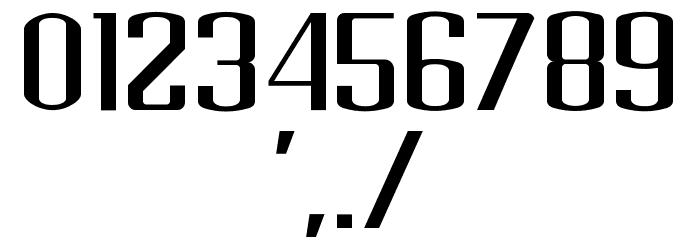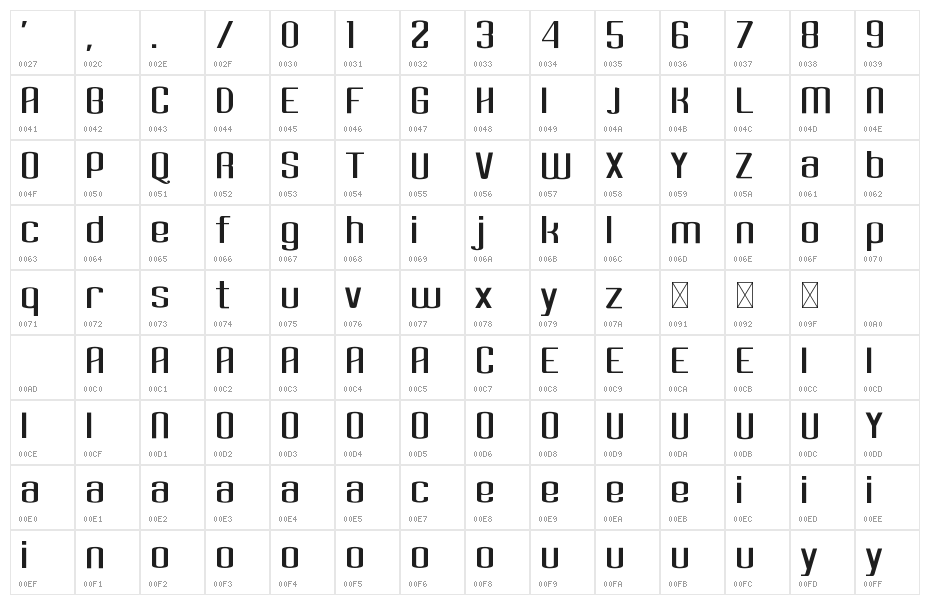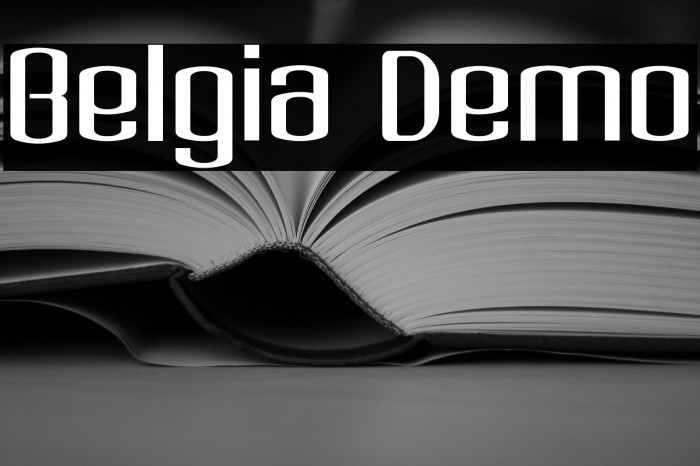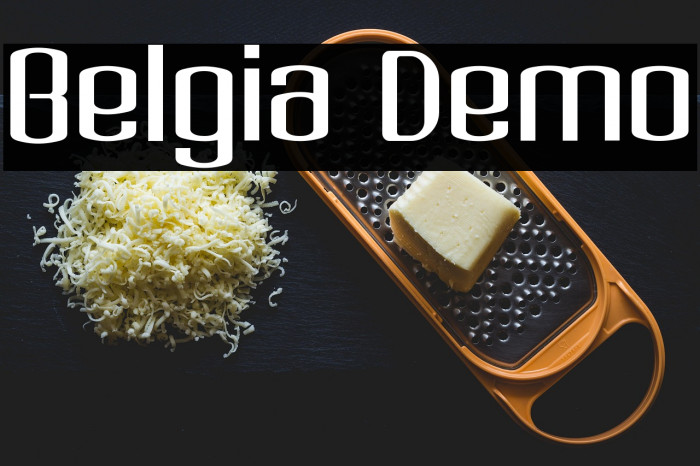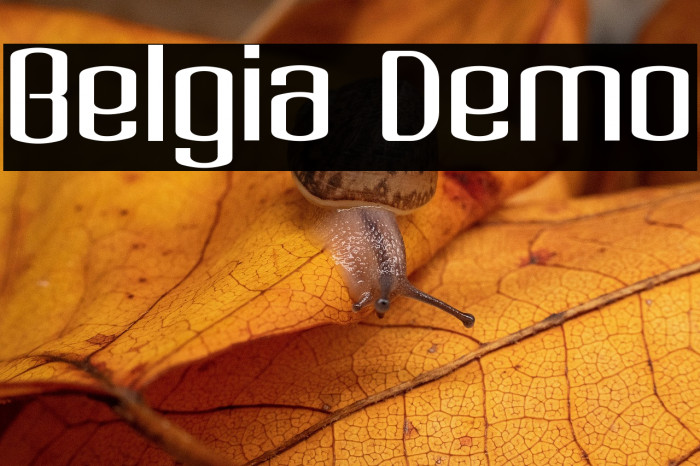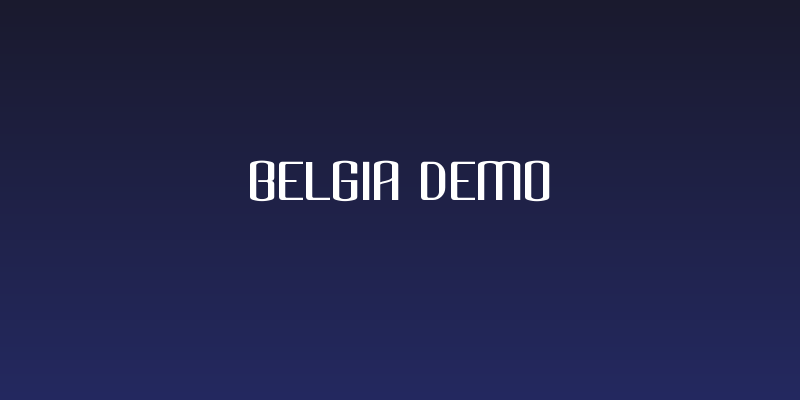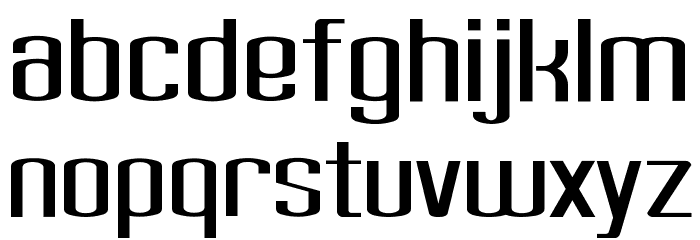
Belgia Demo Font
Belgia Demo Description
This font features a modern and sleek design with a geometric structure. The characters are tall and narrow, giving it a condensed appearance. The uppercase letters have a consistent height, while the lowercase letters maintain a uniform x-height. The numerals are designed to match the overall style, with a distinctive angularity that complements the alphabet. The special characters are integrated seamlessly, maintaining the font's clean and contemporary aesthetic. This font is well-suited for projects that require a modern and professional look.
| Proposed Projects | Ideal for branding, editorial design, and digital interfaces where a contemporary and professional appearance is desired. |